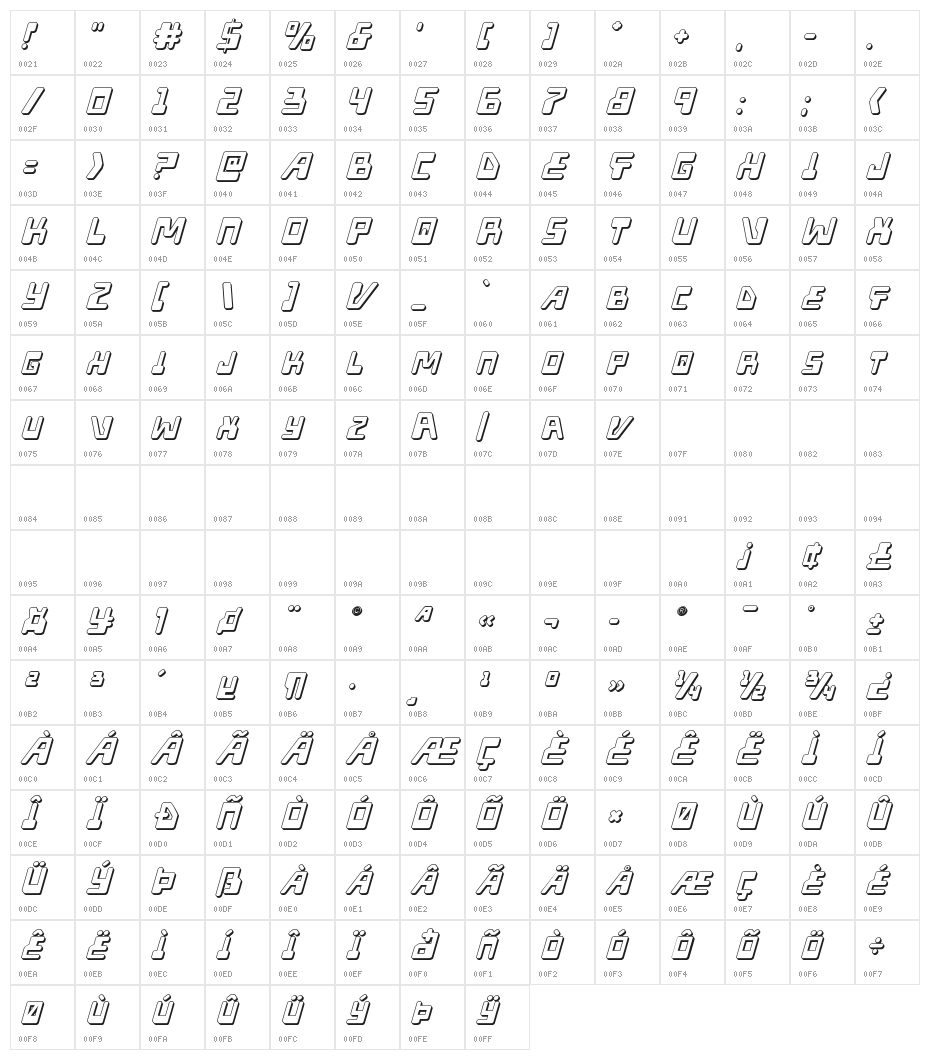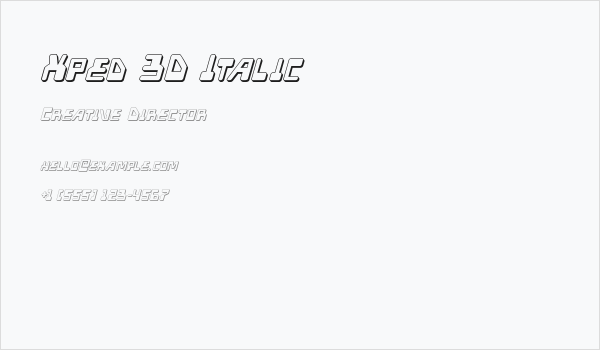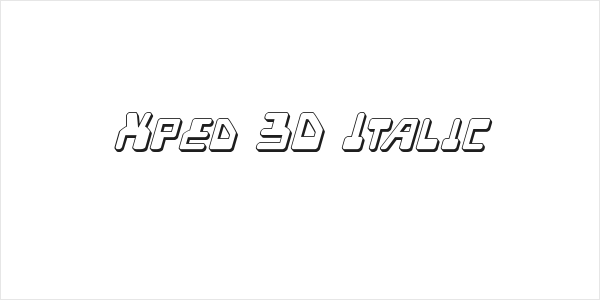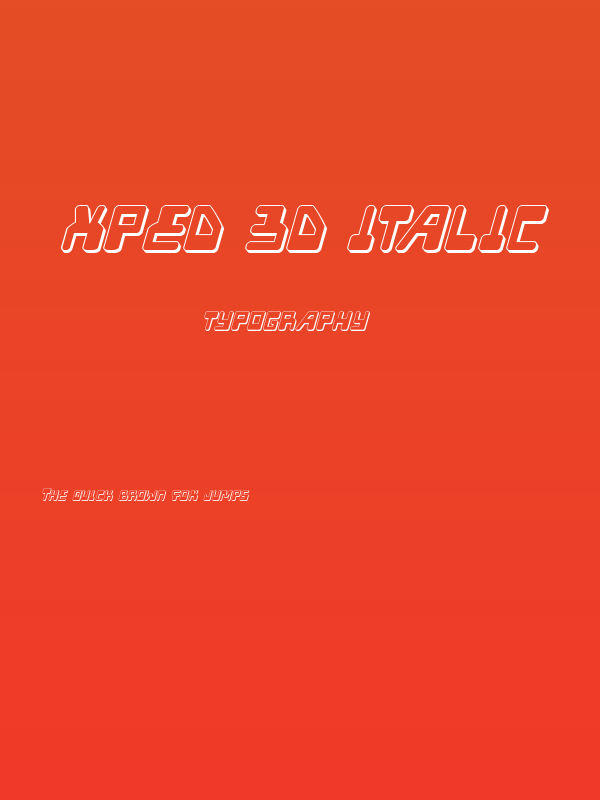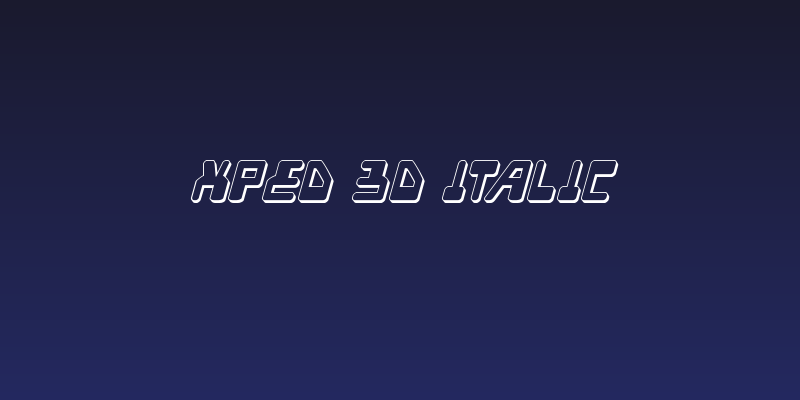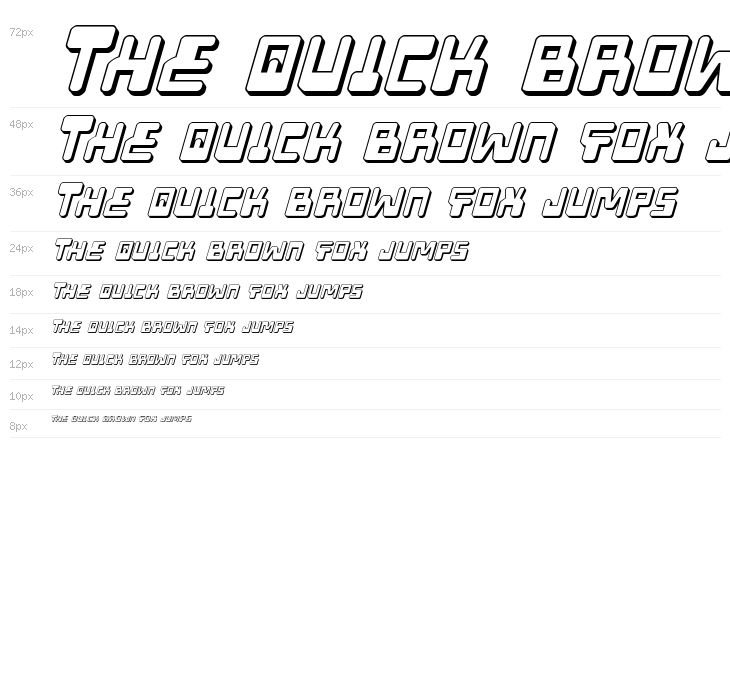
Xped 3D Italic Font
Xped 3D Italic Description
This font features a bold, three-dimensional appearance with italicized characters, giving it a dynamic and futuristic look. The letters are outlined with a shadow effect that creates a sense of depth and movement. The geometric shapes and clean lines contribute to its modern aesthetic, making it stand out in any design. The uppercase and lowercase letters maintain a consistent style, while the numbers and special characters complement the overall design. The font's unique style is ideal for projects that require a bold and eye-catching typeface.
| Proposed Projects | Ideal for sci-fi themed designs, video game titles, posters, and branding that requires a modern and bold statement. |